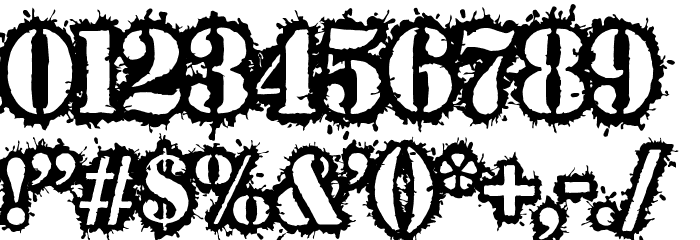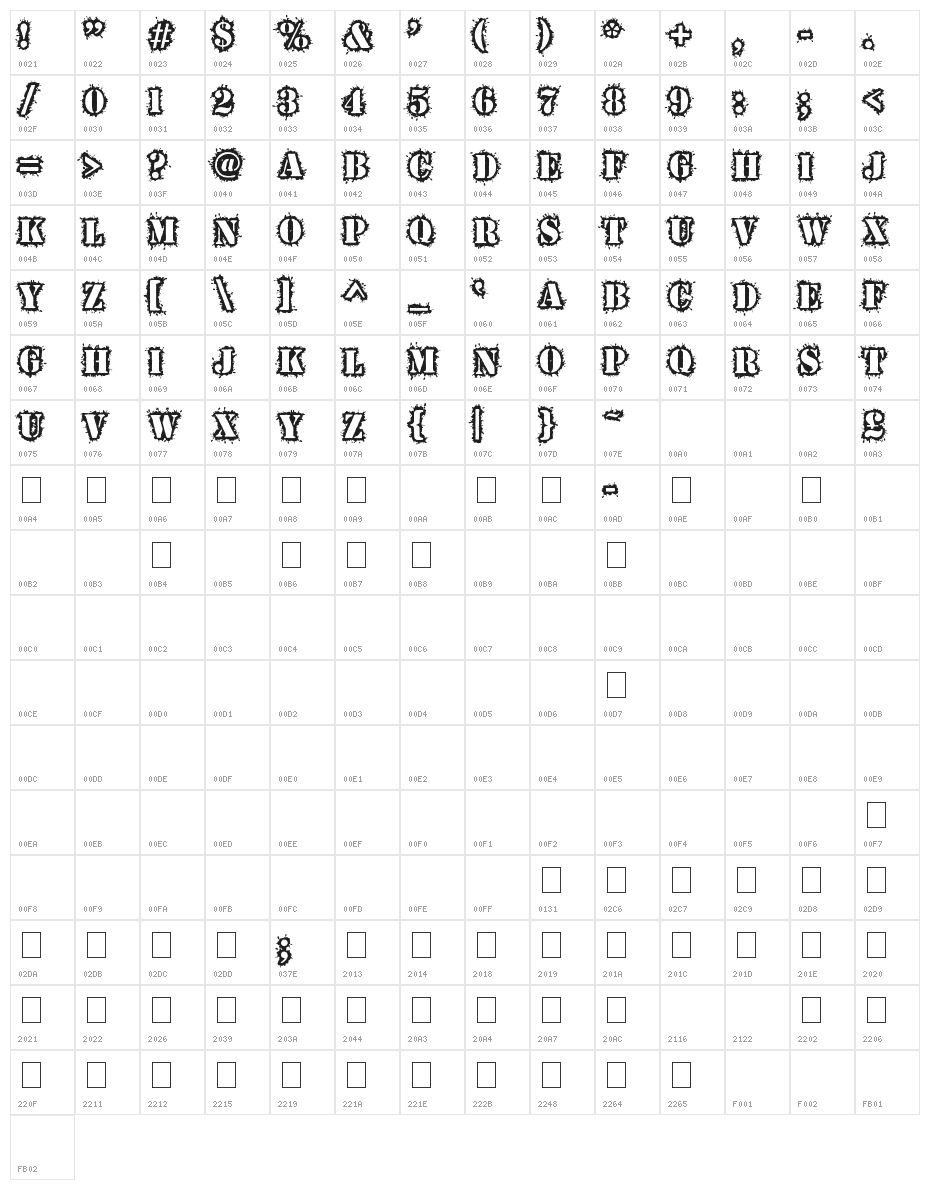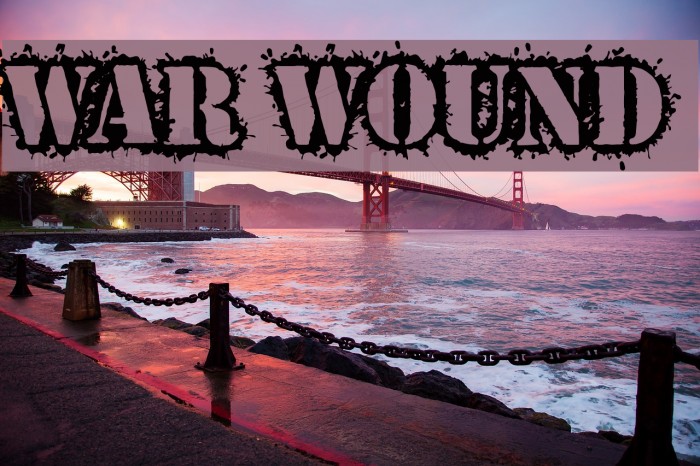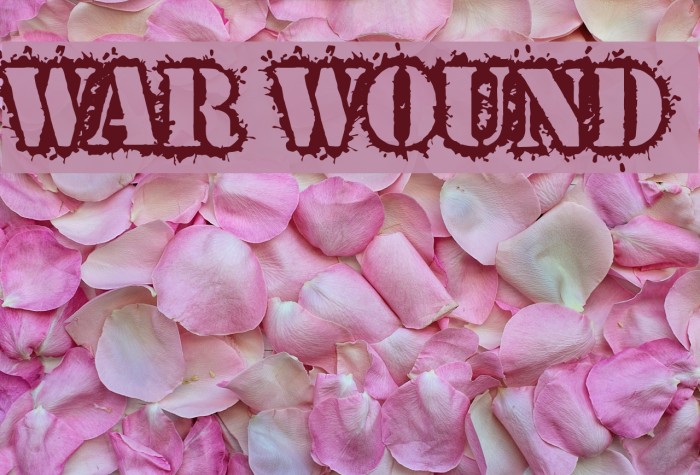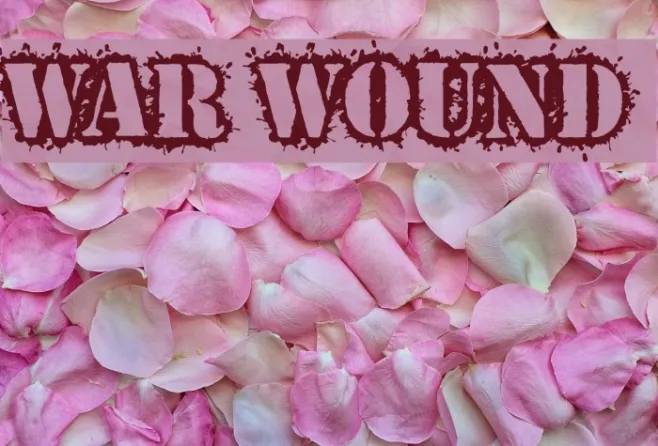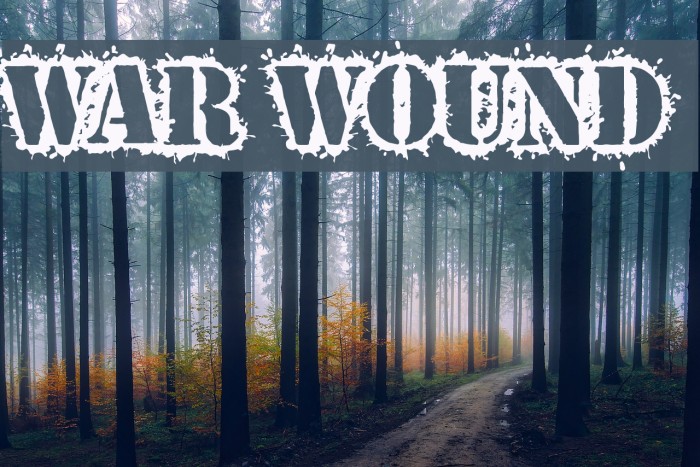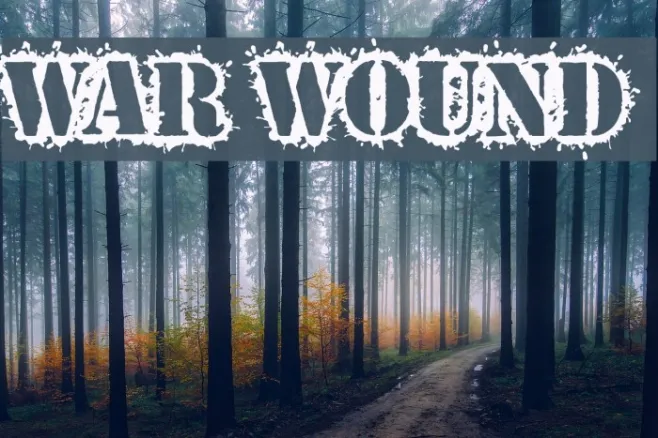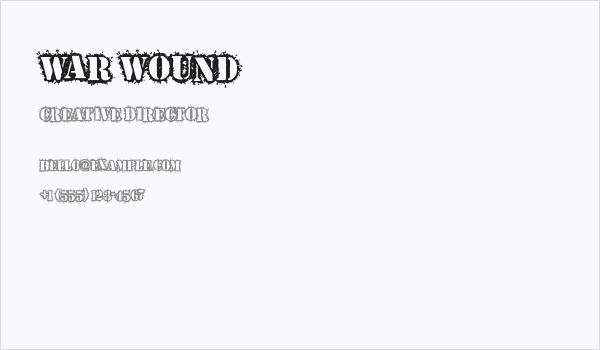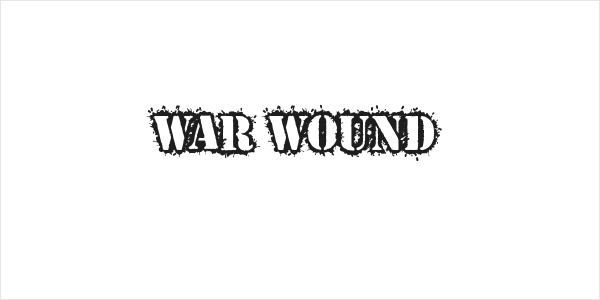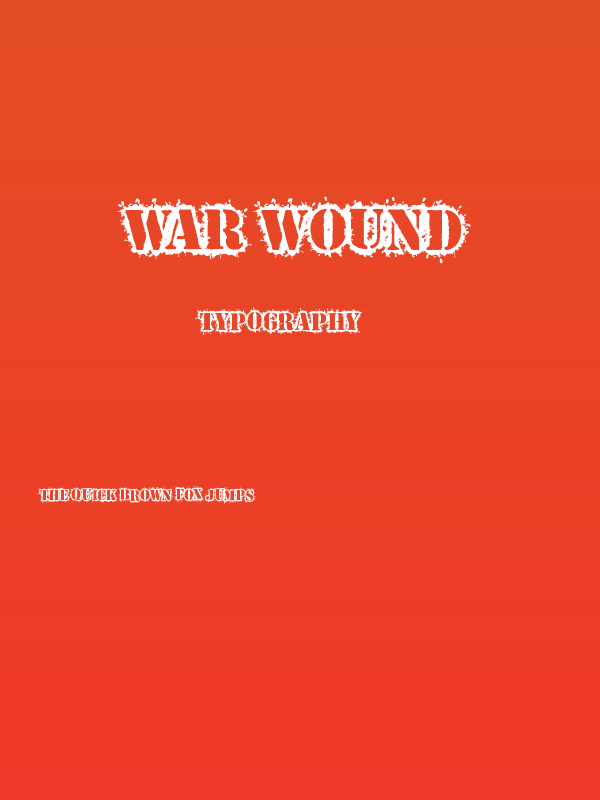
War Wound Font
War Wound Description
This font features a rugged and distressed appearance, with each character surrounded by a jagged, splattered texture that gives it a war-torn, grunge aesthetic. The bold, uppercase letters are designed with a strong presence, making them stand out with their thick strokes and rough edges. The numbers and special characters follow the same style, maintaining consistency across the entire set. The font's unique design is reminiscent of graffiti or street art, adding an edgy and rebellious feel to any project.
| Overall Style | Grunge, Edgy, Rebellious |
| Proposed Projects | Ideal for music album covers, poster designs, video game titles, and any project requiring a gritty, rebellious look. |